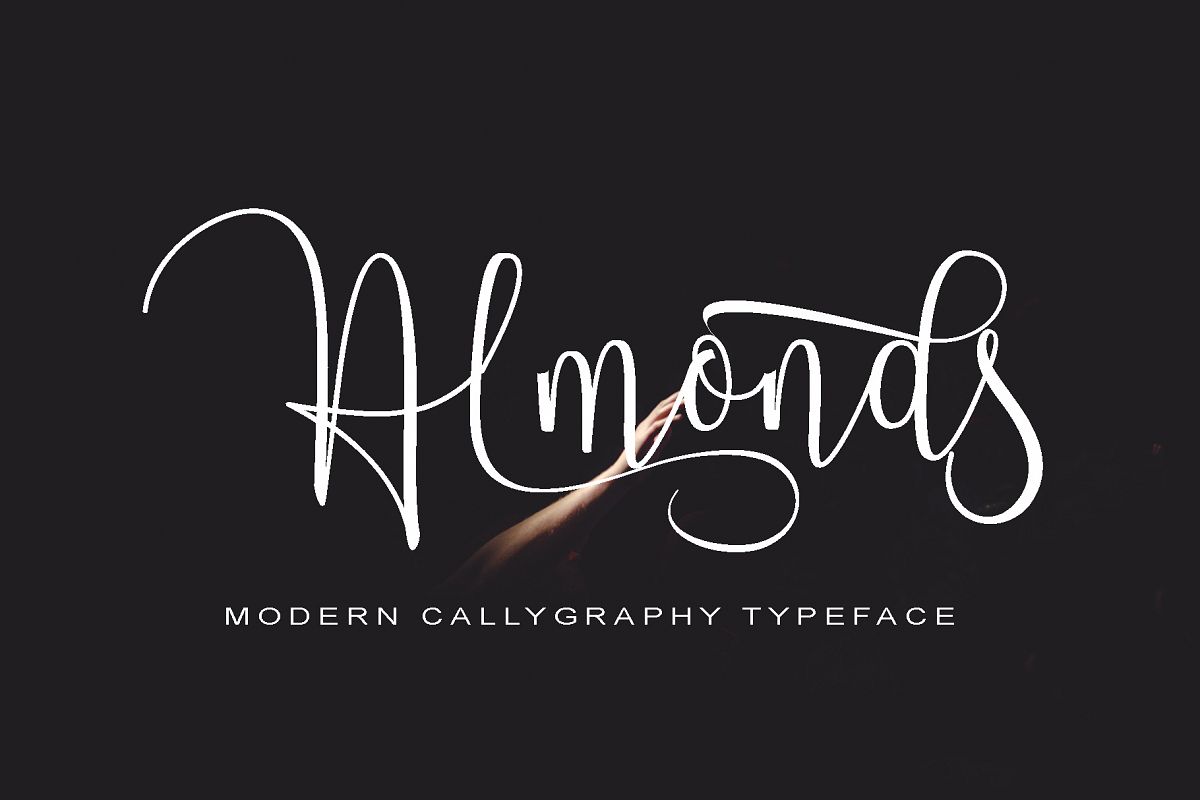
Almonds Script
Introducing:
Almonds a font work that is purely handwritten, has its own characteristics with the style of monoline. this is perfect for invitations, signatures, blogs, social media, business cards, product brands.
Almonds has Stylistic standard, Stylistic Alternate, Stylistic Sets and ligatures. and includes uppercase and lowercase letters, numbers and punctuation marks.
The Features of this fonts is;
* Standart ligatures
* Stylistic Alternates
* Contextual Alternates
* Stylistic sets